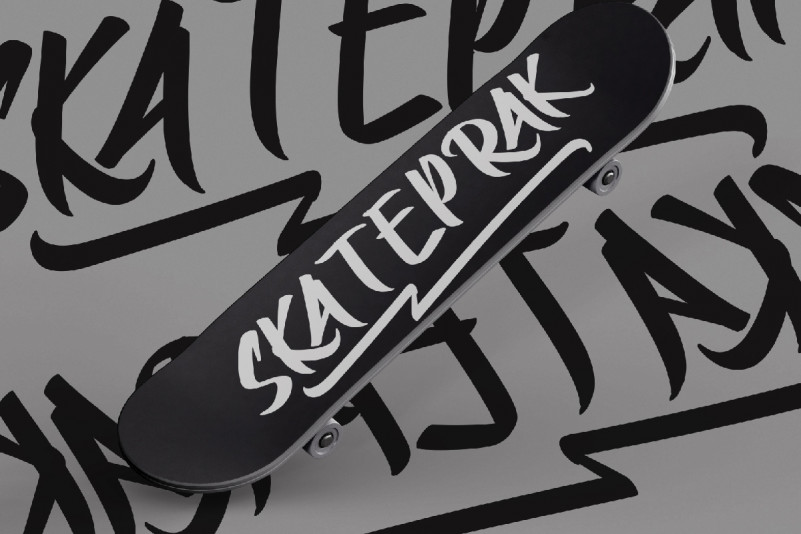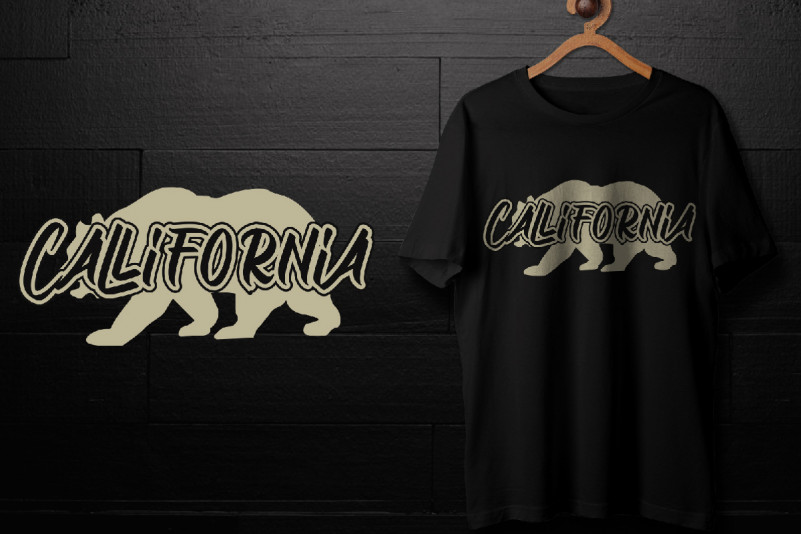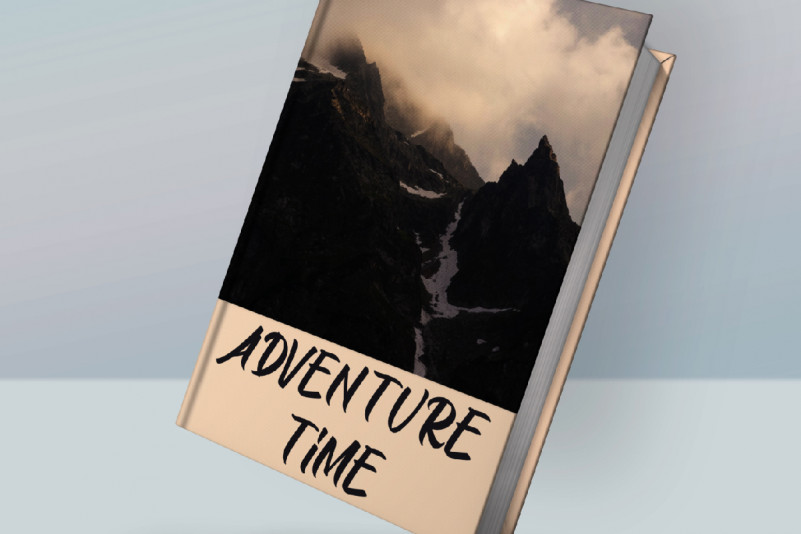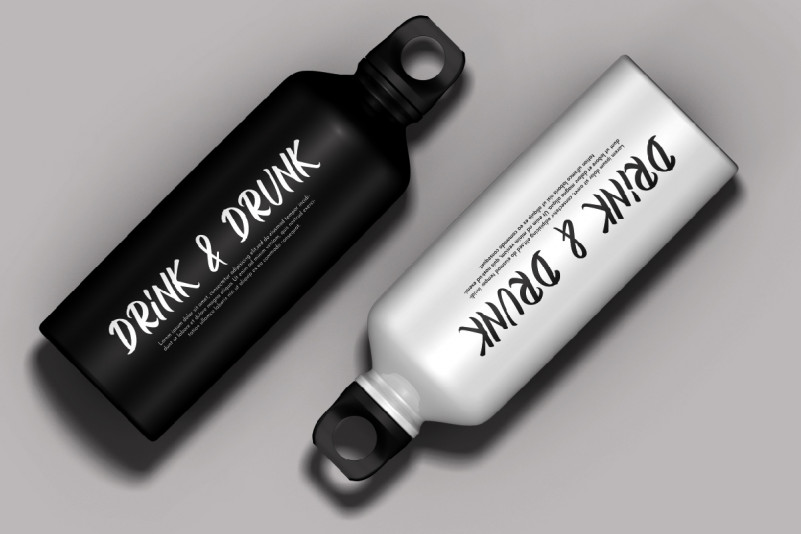
Thebig Brush Font
The theme style of the Thebig is unique, natural, beauty, movie, sporty, gamer, motorcycle brush style. The font will be match for this typeface: houseware, cosmetic, events, artist, musician, café, coffee, promotion, etc